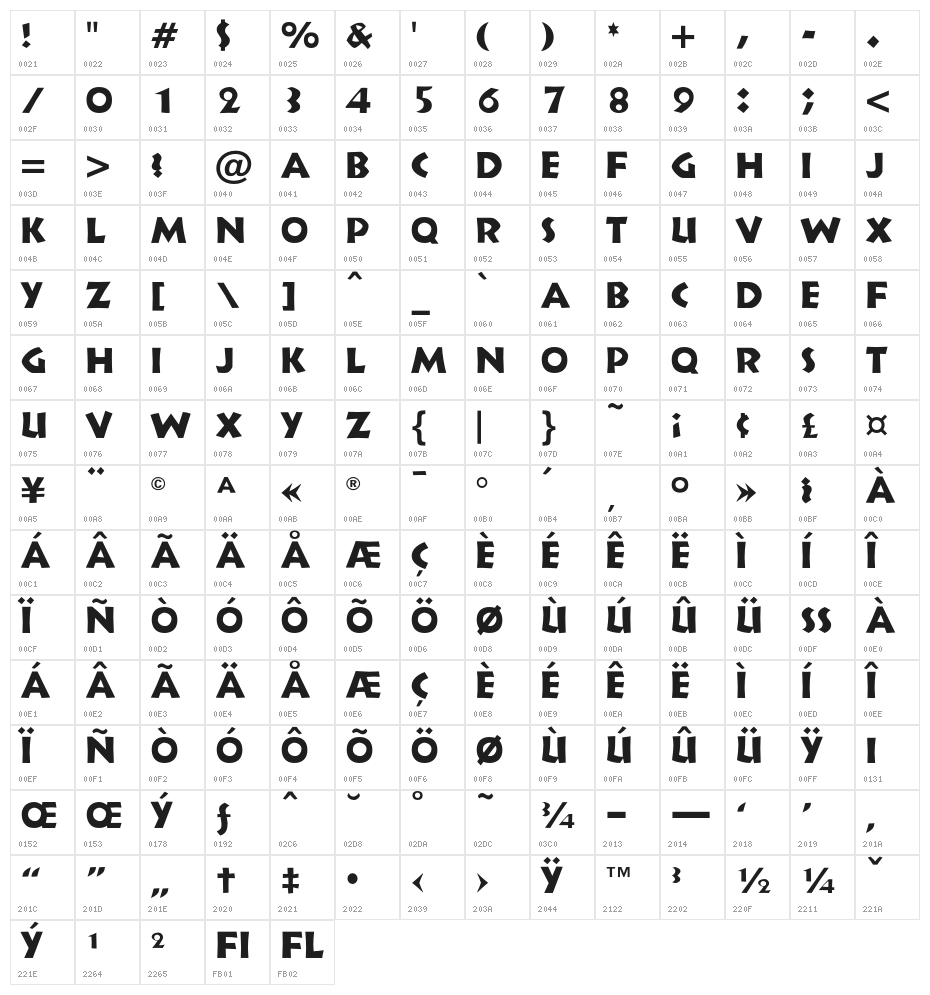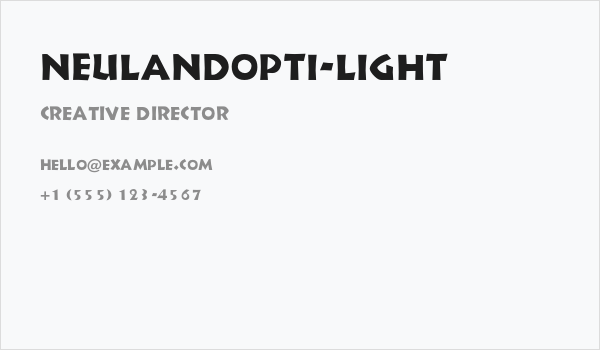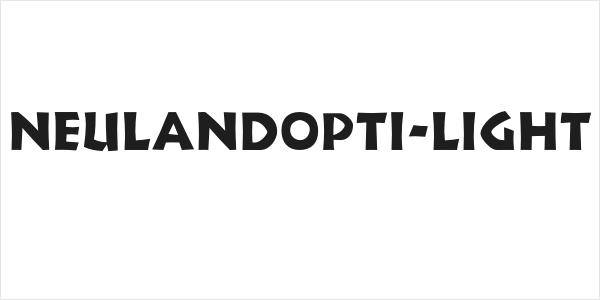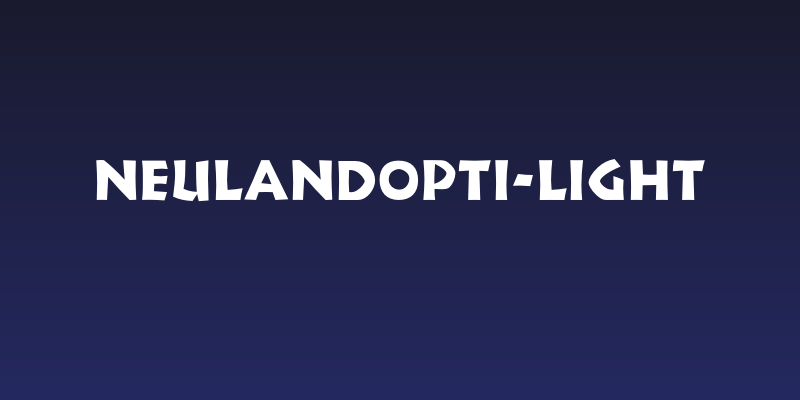
NeulandOpti-Light Font
NeulandOpti-Light Description
This font features a bold and striking design with angular, geometric shapes that give it a distinct and powerful appearance. The characters are crafted with sharp edges and a slightly condensed form, making it ideal for impactful and attention-grabbing text. The uppercase letters are particularly prominent, with a uniform height that enhances readability and visual appeal. The numbers and special characters maintain the same bold style, ensuring consistency across all elements. This font is perfect for projects that require a strong and dynamic visual presence.
| Proposed Projects | Ideal for posters, headlines, logos, and branding materials that require a strong visual impact. |